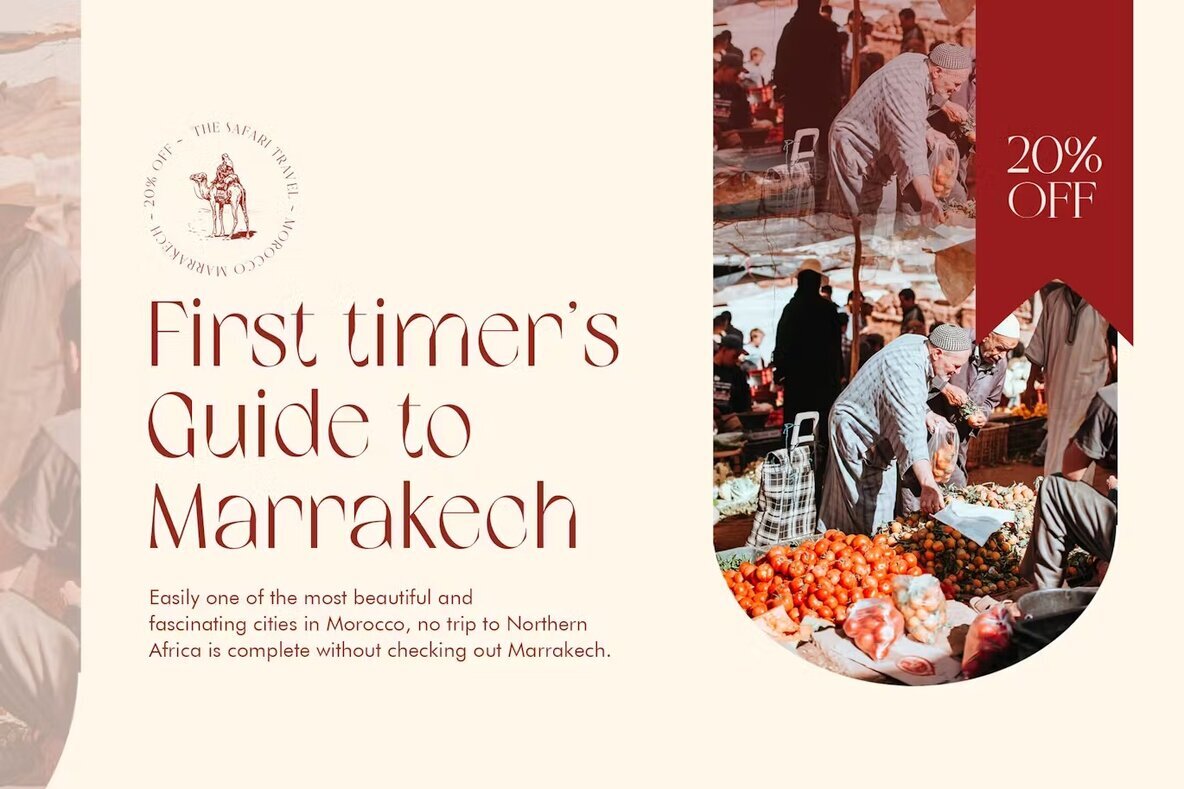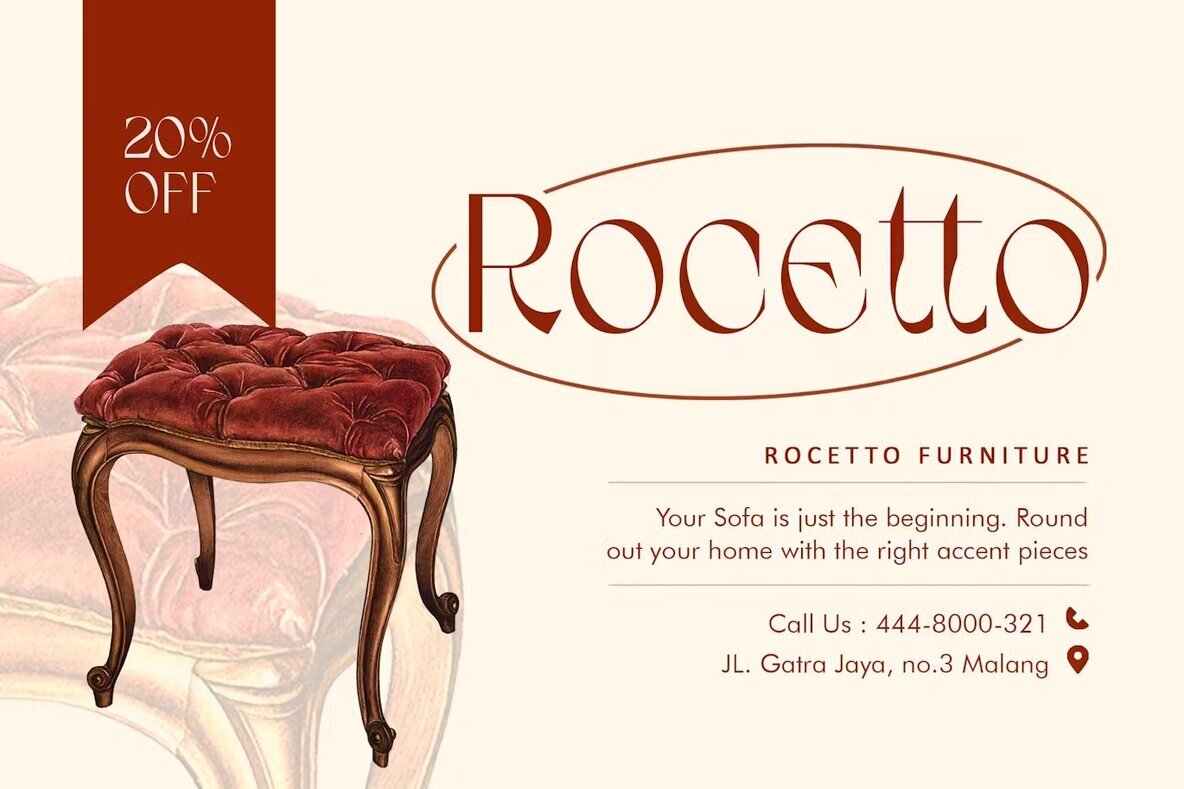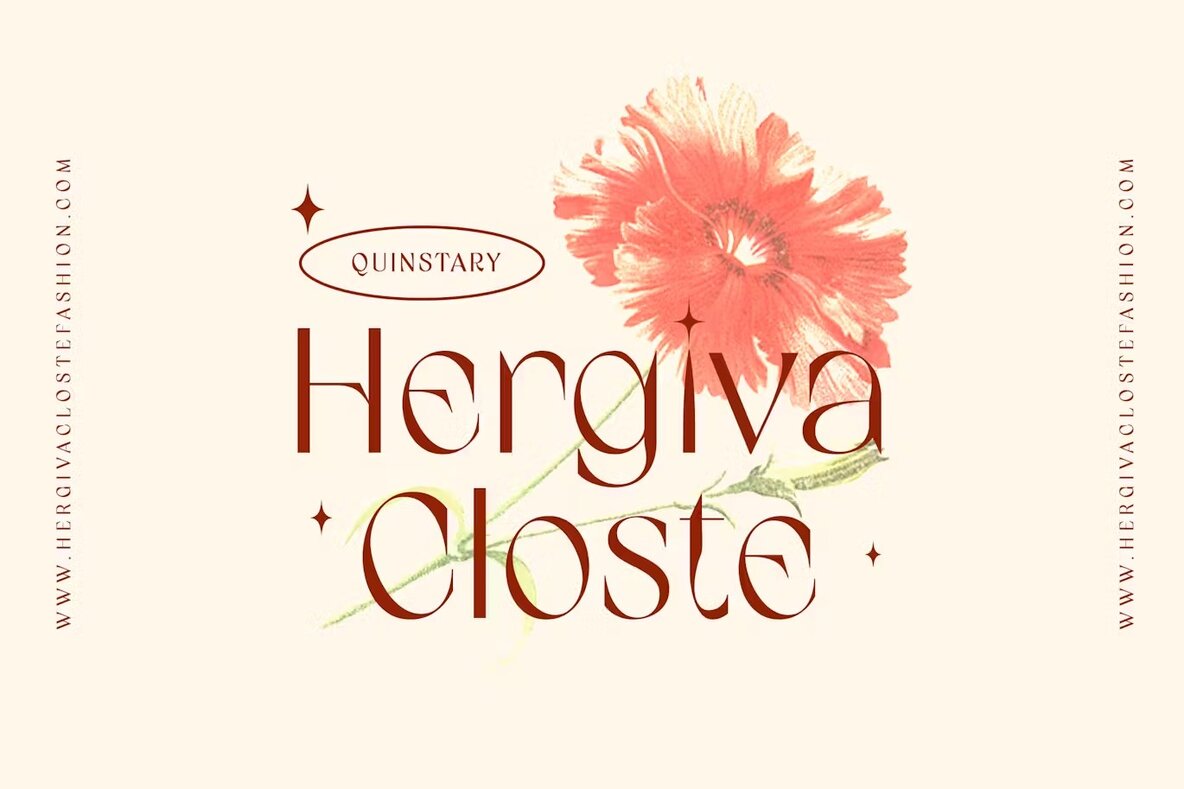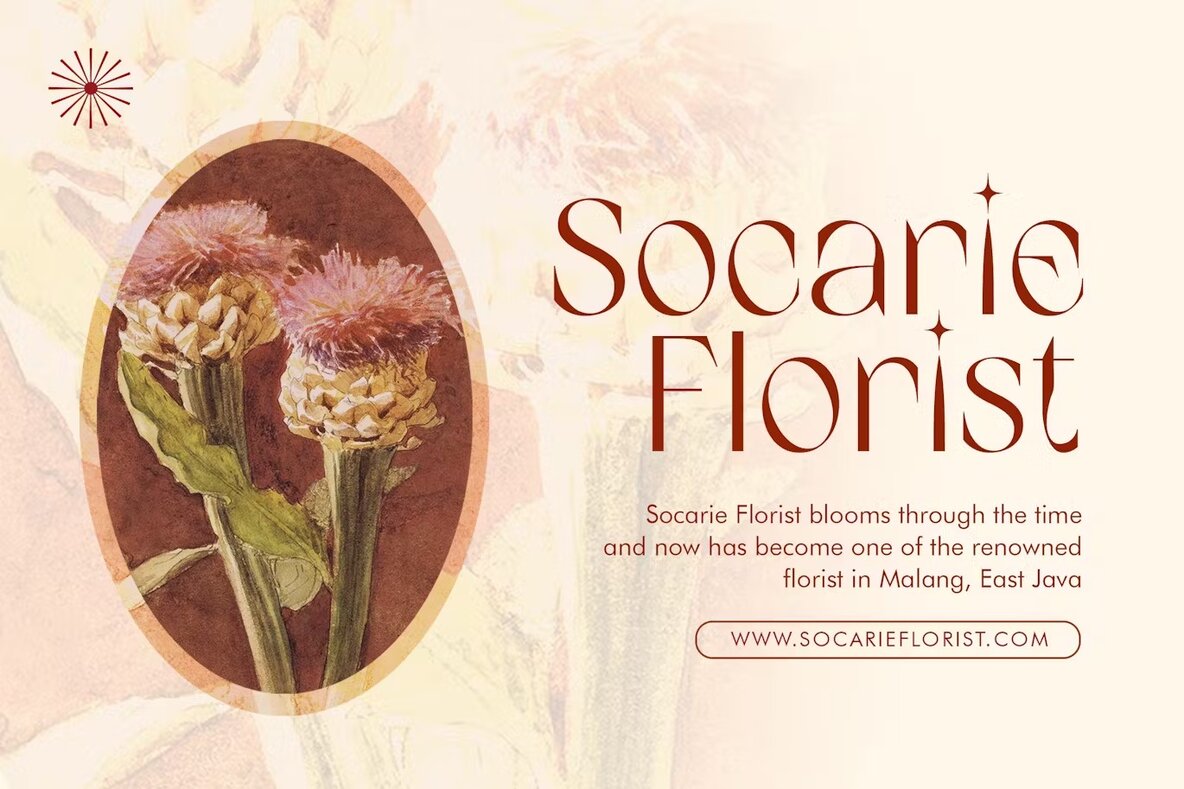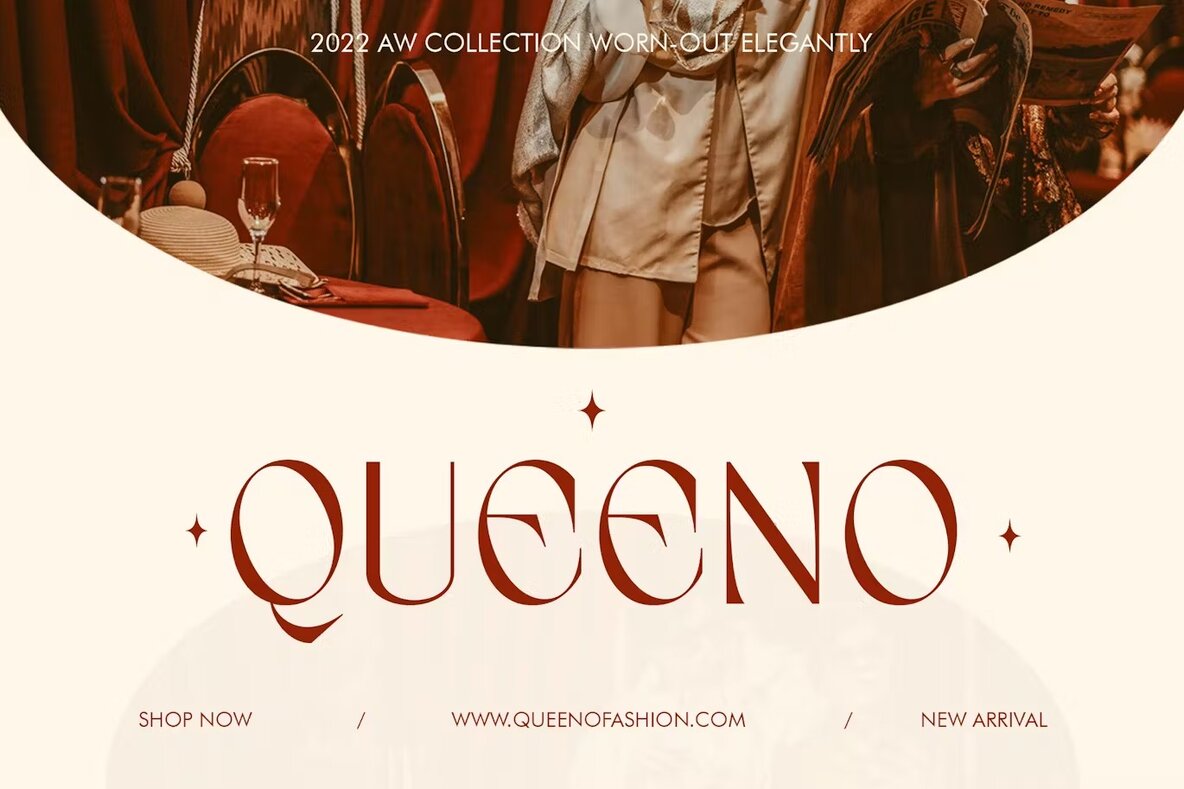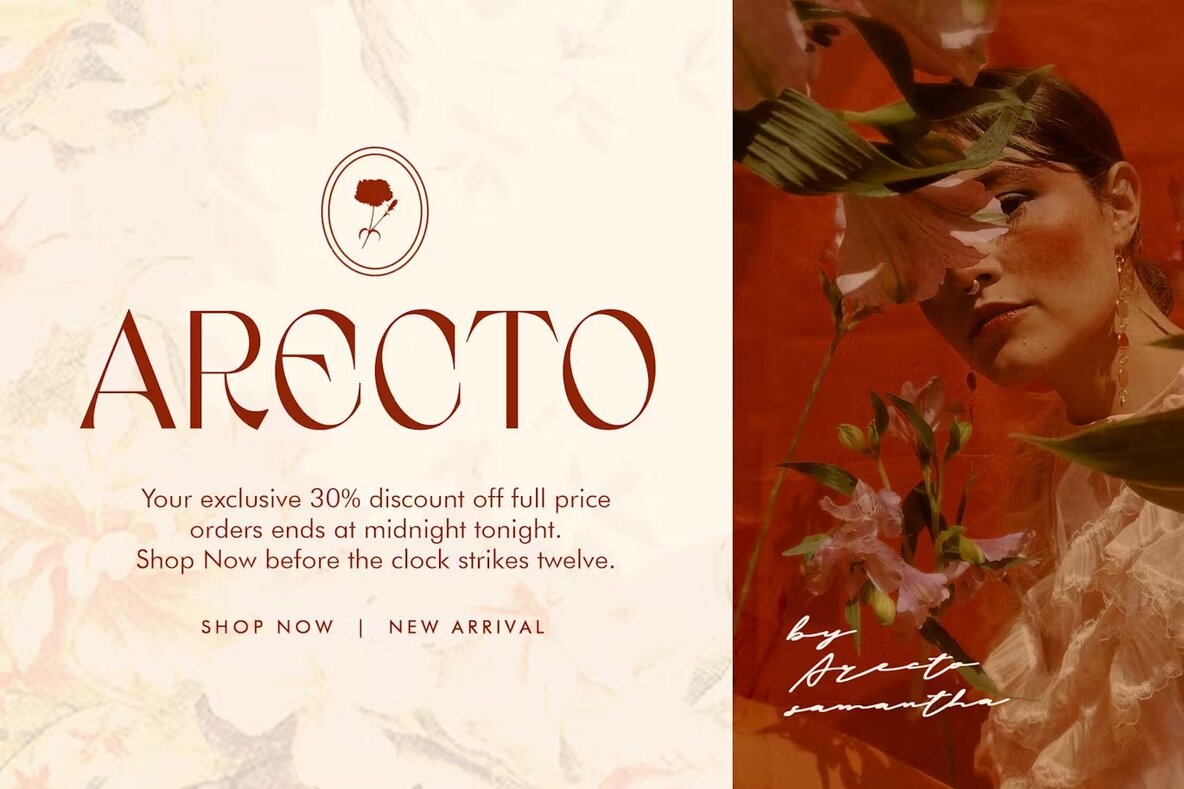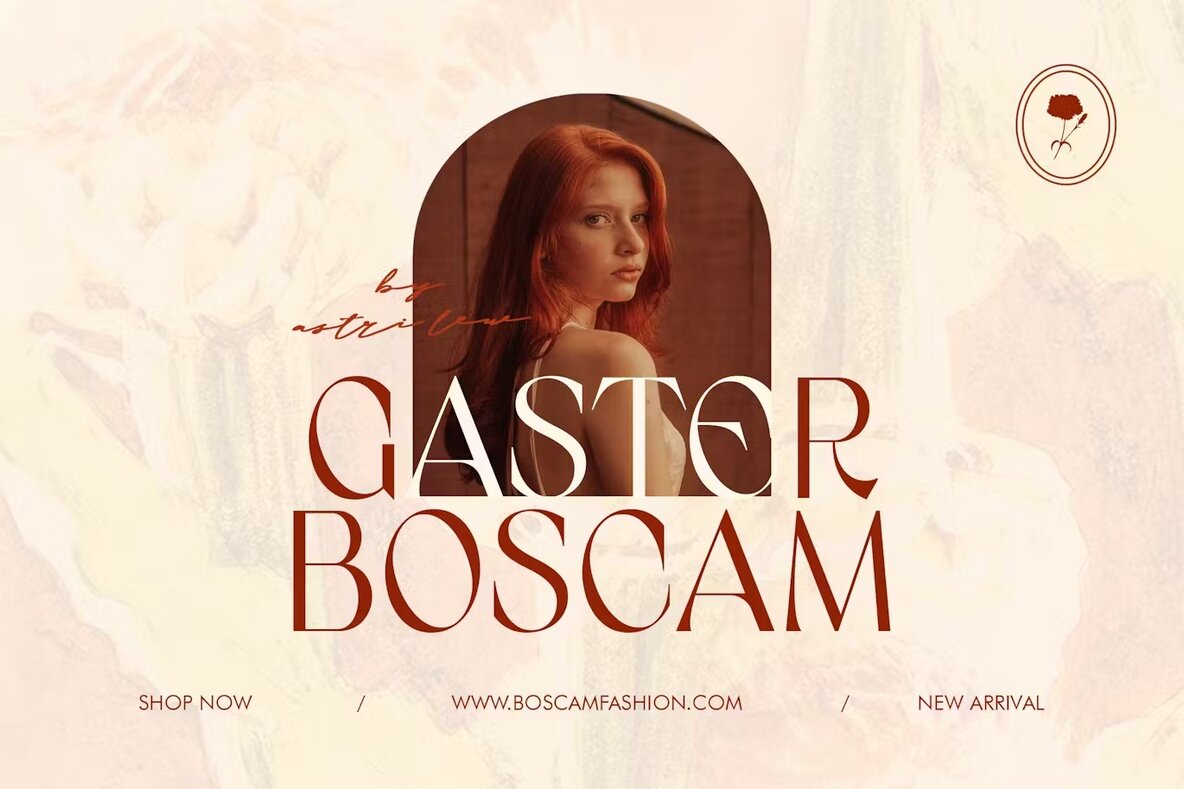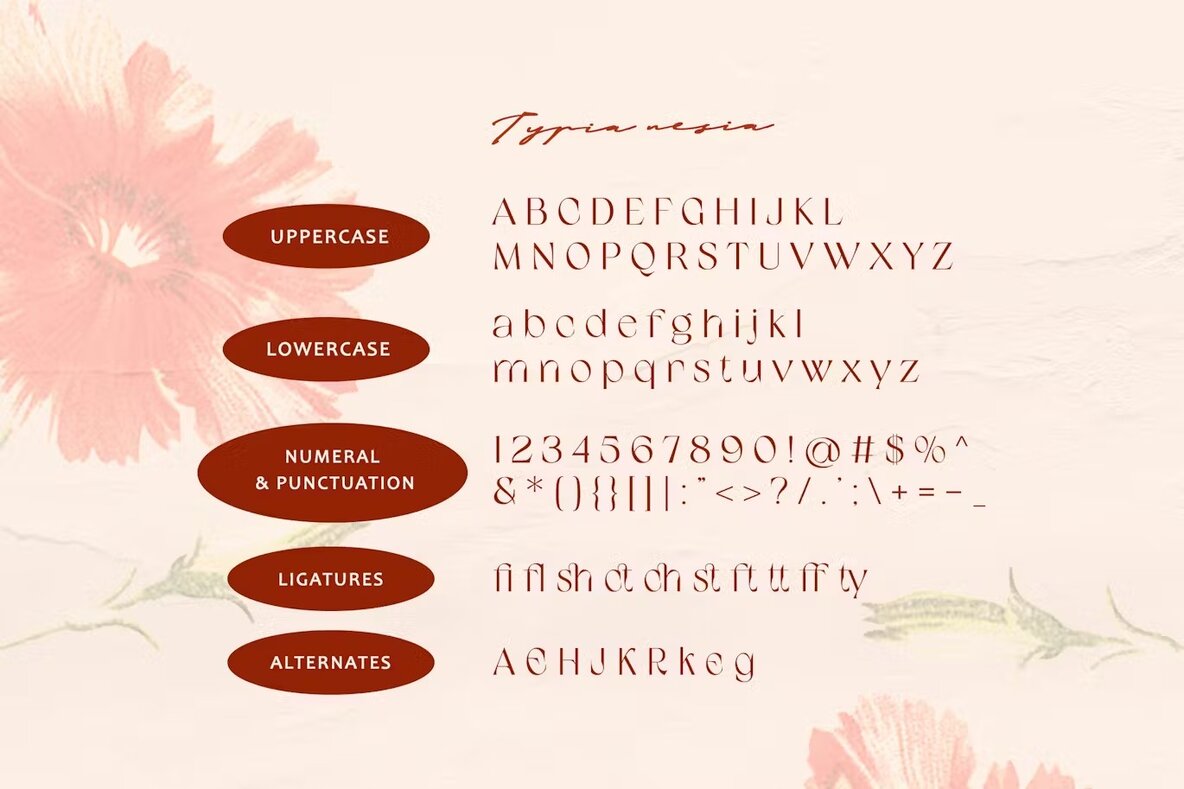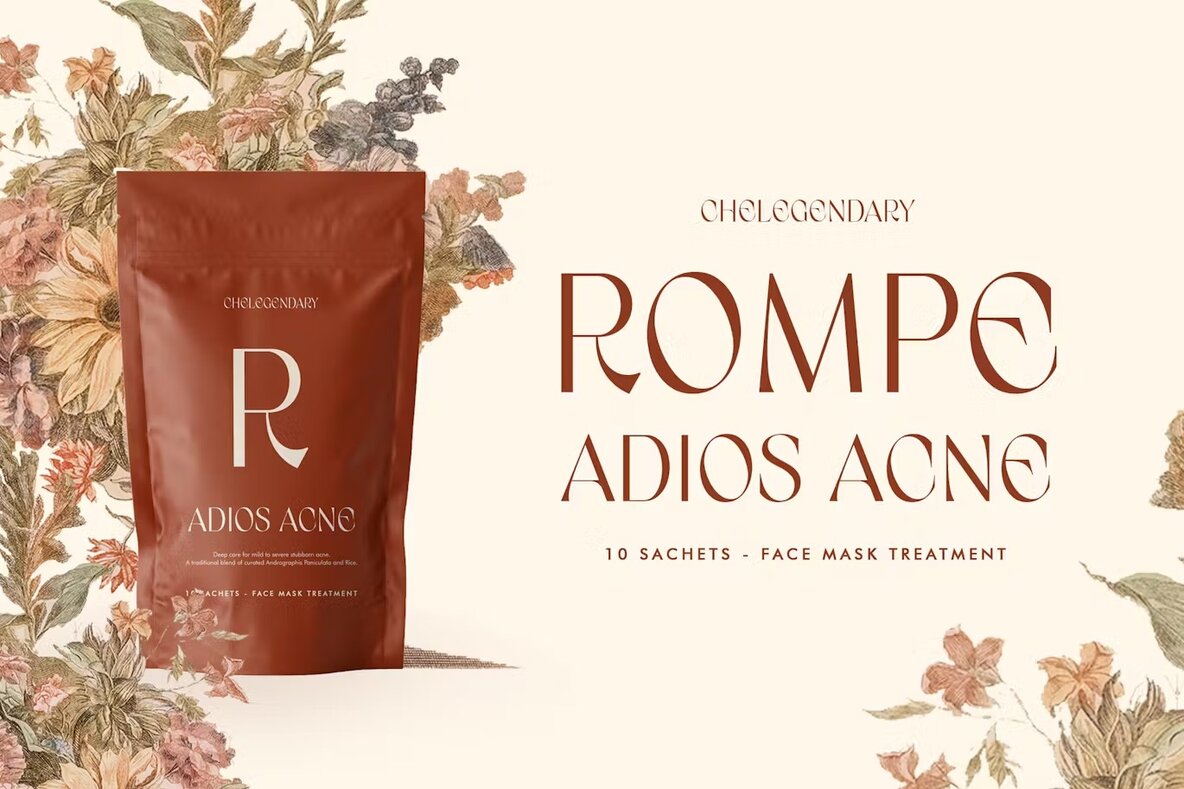
Quinstary Font
Quinstary Regular
Experience the epitome of femininity and charm with this elegant serif font, designed to embody a perfect blend of expressiveness, romance, and sophisticated beauty. Ideal for branding, editorial designs, packaging, and wedding invitations, this font's graceful and refined design adds a touch of elegance to any project requiring a sophisticated aesthetic.
Featuring delicate and expressive serifs, clean lines, and captivating curves, this font creates a visually pleasing and harmonious typography. With included alternates and ligatures, it offers versatile combinations for impeccable design. Choose this font to evoke emotions and make a lasting impression with its modern beauty and elegance.